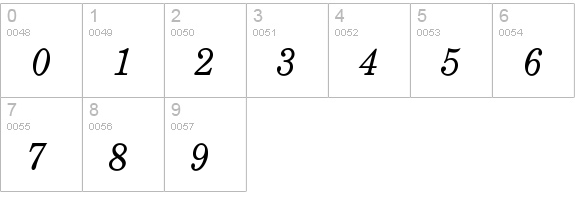
Century Schoolbook Italic Font Details
Century Schoolbook Italic is a distinctive, italic variant in the Century typeface family \xE2\x80\x94 well suited to design and typography projects.
Century Schoolbook Italic is a classic and elegant font style that exudes sophistication and timeless appeal. The flowing italic design adds a touch of grace and refinement to any text or design project. Its slanted letterforms convey a sense of movement and elegance, making it perfect for projects that require a touch of flair. This font is versatile and can be used for a variety of purposes, from formal invitations to editorial layouts to branding materials. The Century Schoolbook Italic font strikes the perfect balance between tradition and modernity, making it a popular choice for designers looking to add a touch of sophistication to their work. Best of all, Century Schoolbook Italic is available for free download at FontsMarket.com. Whether you're a professional designer or a casual enthusiast, this font is a valuable addition to your collection. Download it today and elevate your projects with the timeless beauty of Century Schoolbook Italic.